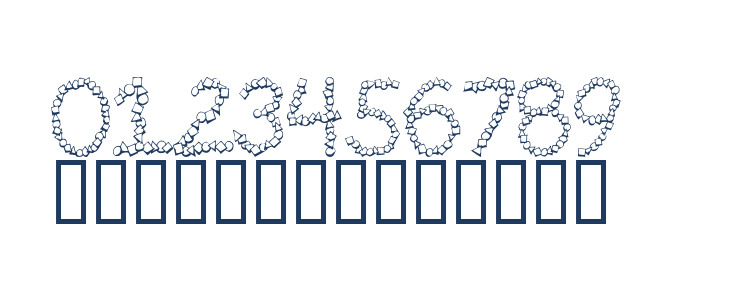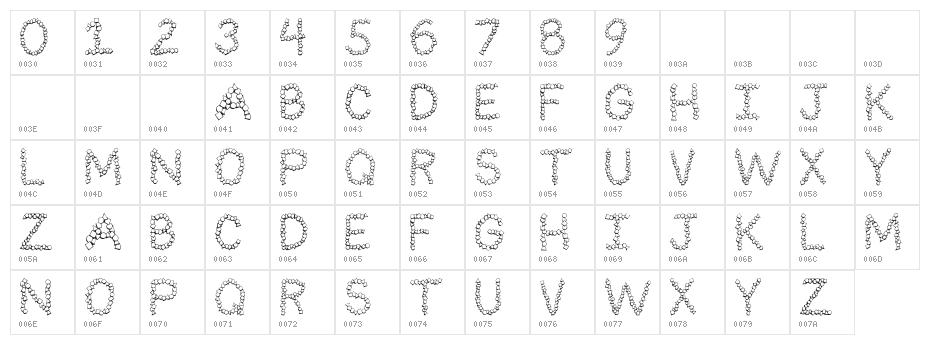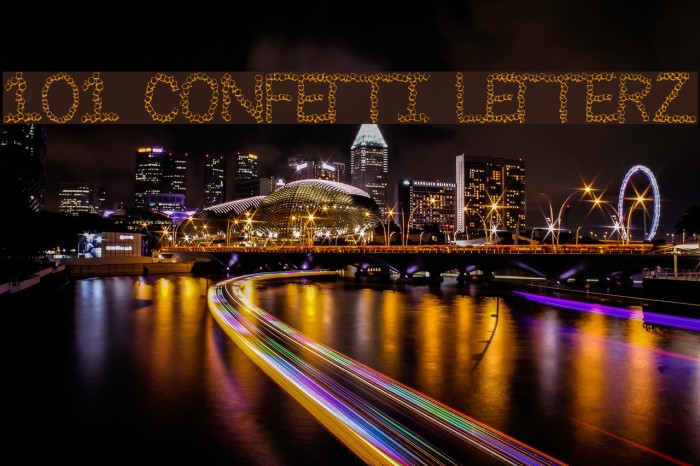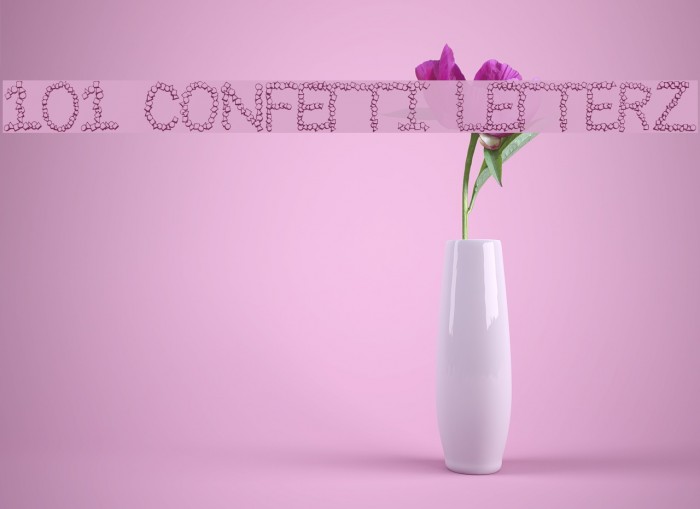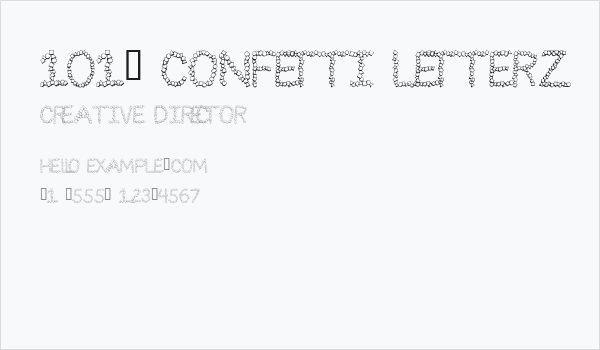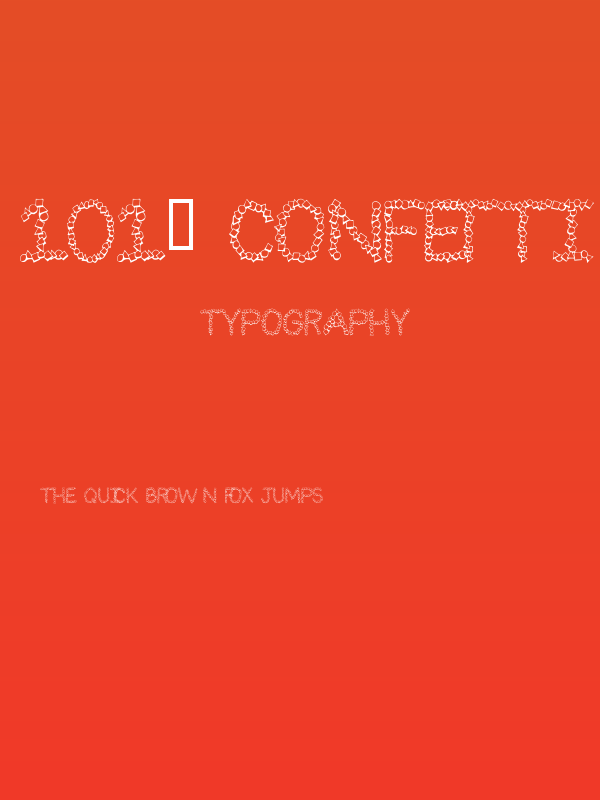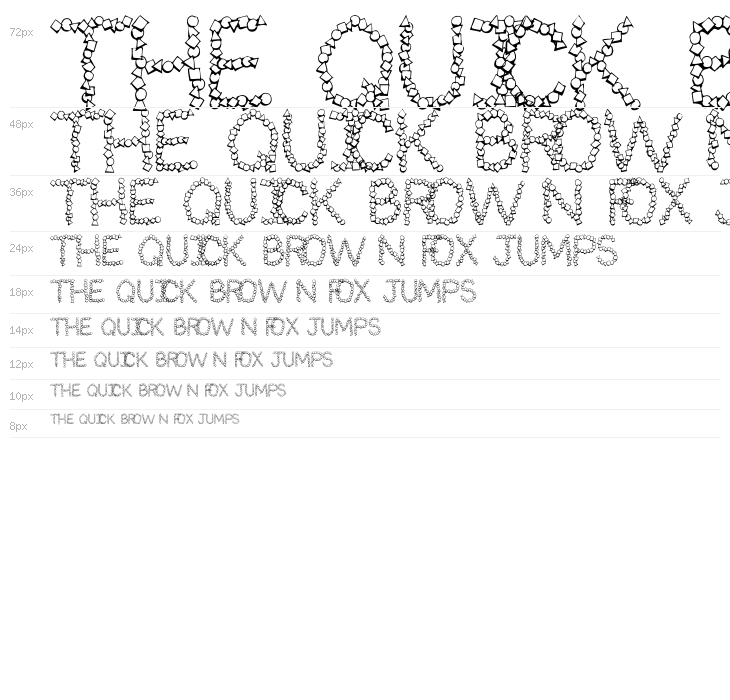
101! Confetti LetterZ Font
101! Confetti LetterZ Description
This playful and decorative font is composed of numerous small geometric shapes, resembling confetti, that form each character. The design is intricate, with each letter and number appearing as if they are made from a collection of tiny, connected polygons. This creates a festive and lively appearance, making it ideal for celebratory themes. The characters maintain a consistent size and shape, ensuring readability despite their complex design. The font is highly stylized, with a unique texture that adds a sense of movement and energy to any text.
| Proposed Projects | Ideal for party invitations, festive banners, children's book covers, and playful branding projects. |